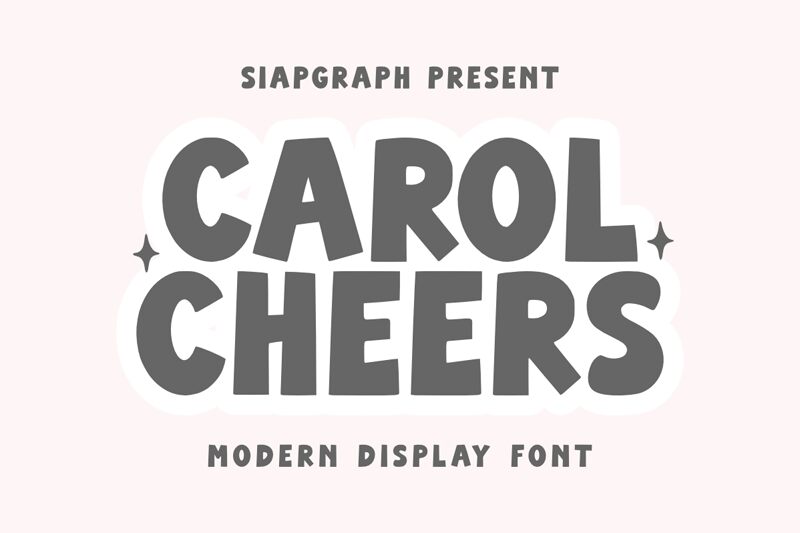
Carol Cheers font by Siapgraph is a free font that’s nothing short of truly engaging. It combines a retro feel with contemporary notes to present a fun and approachable look that speaks for itself. It is rounded, cartoonish, and bold with geometric features that make it an excellent choice for the creative applications that come to your mind.
Feel free to use it in headlines, posters, magazine titles, and branding, especially for modern tech and fashion brands. Use its cartoon style to your advantage to help your applications immediately captivate the audience.